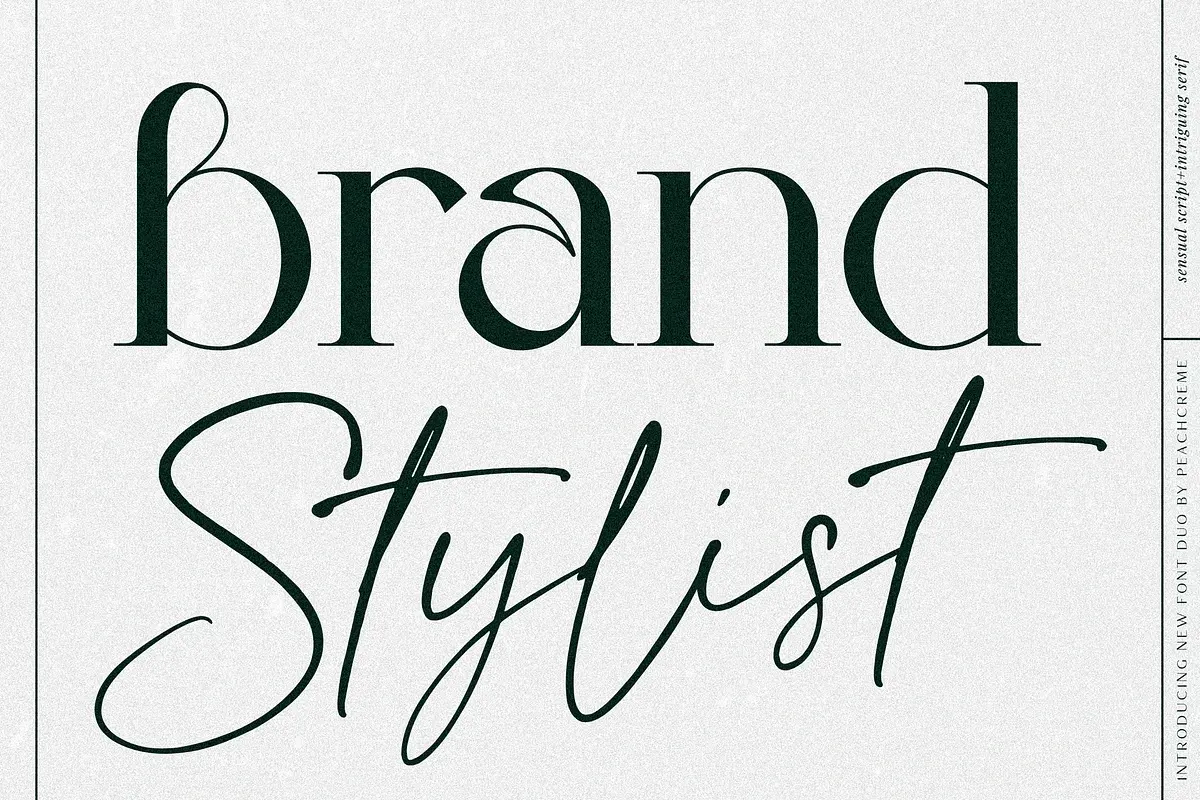
Brand Stylist Font Free Download is a luxurious font duo designed to bring high-end elegance and modern flair to your branding projects. This stunning pair features a sleek serif typeface and a graceful script, perfectly balanced to create sophisticated logos, fashion labels, wedding suites, and upscale product packaging.
The serif brings structure and professionalism, while the script adds a personal, stylish touch—making the combination ideal for any brand aiming for a premium, fashion-forward aesthetic. Each font includes uppercase and lowercase letters, numerals, punctuation, and beautiful ligatures for a polished finish.
Whether you're launching a boutique brand or crafting a stylish editorial design, Brand Stylist Font Free Download gives you everything you need to make a luxurious impression. Use it freely for personal or test designs, and remember to secure the appropriate license for commercial use. Elevate your visual identity with this elegant and versatile luxe font duo.